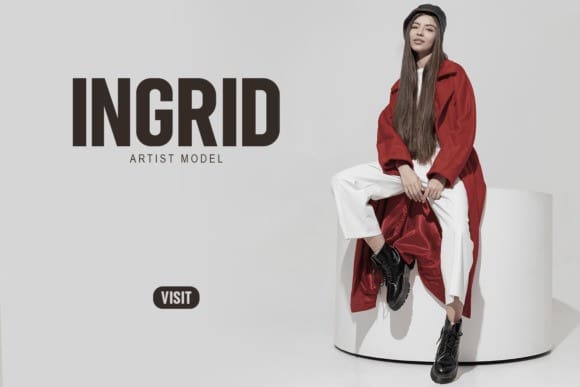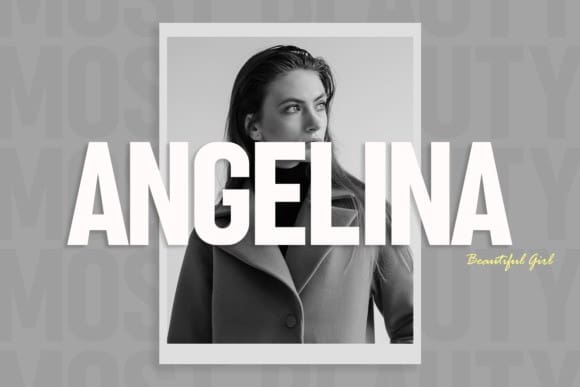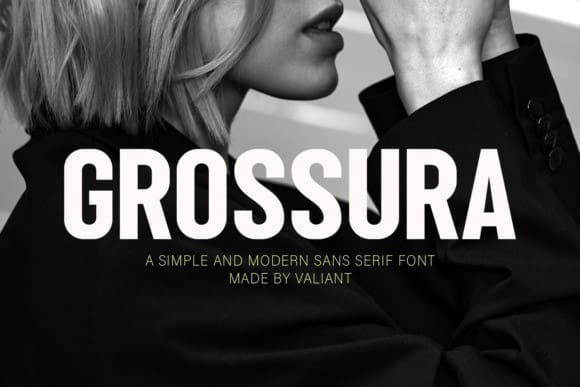
Grossura Font
Grossura Font, an elegantly modern and streamlined font. Perfect as a standout feature for logos, titles, branding, or even adornment for magazine covers, product packaging, and invitations. Infused with historical grandeur, Grossura Sans Serif personifies polished charm with its clean lines and smooth curves. Elevate your projects with a touch of timeless class, effortlessly exuding an undeniable allure that captivates audiences with each graceful stroke.